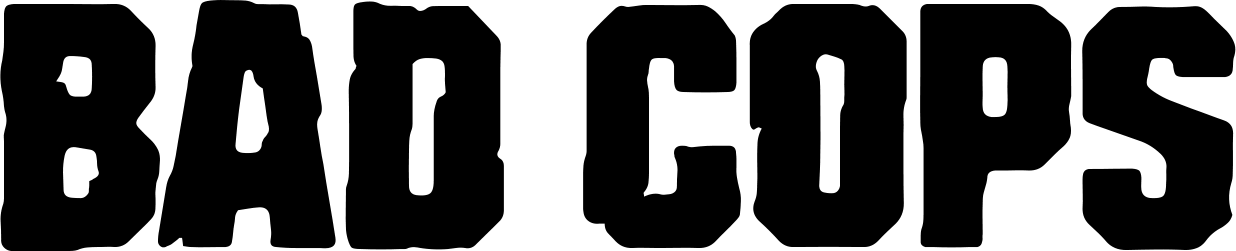
CF Bad Cops Font
Considering the sturdy characters of CF Bad Cops and their ragged style, this destroy font proves to be your best bet when it comes to achieving a strong impression.
Even though it excludes the lowercase edition, as long as you’re after a distinguishable title that gives off vibes of confidence and professionalism, no harm is done. After all, this title block font is capable of enhancing all sorts of designs including games, posters, apparel, and more, using nothing but its capital letterforms.